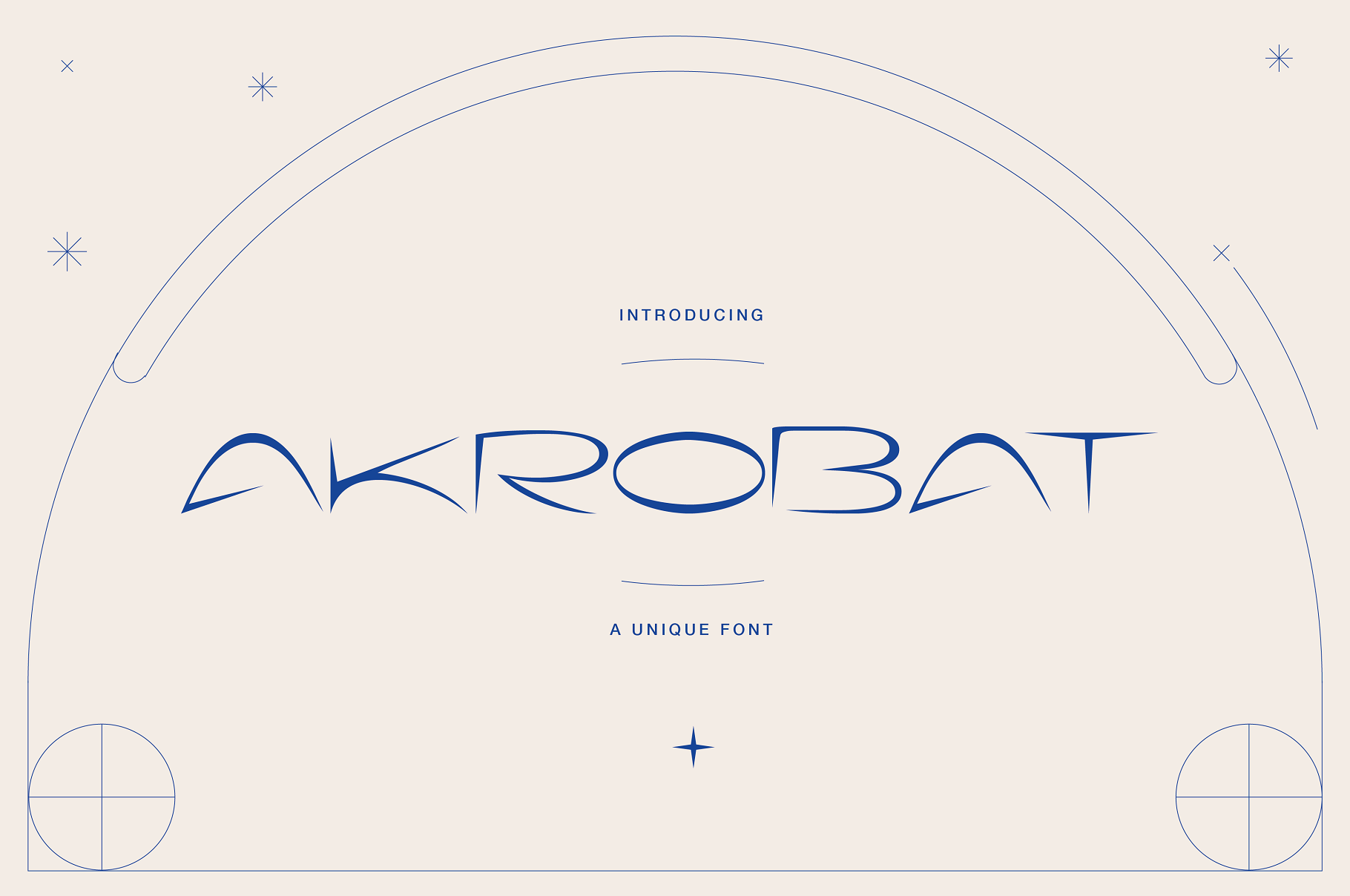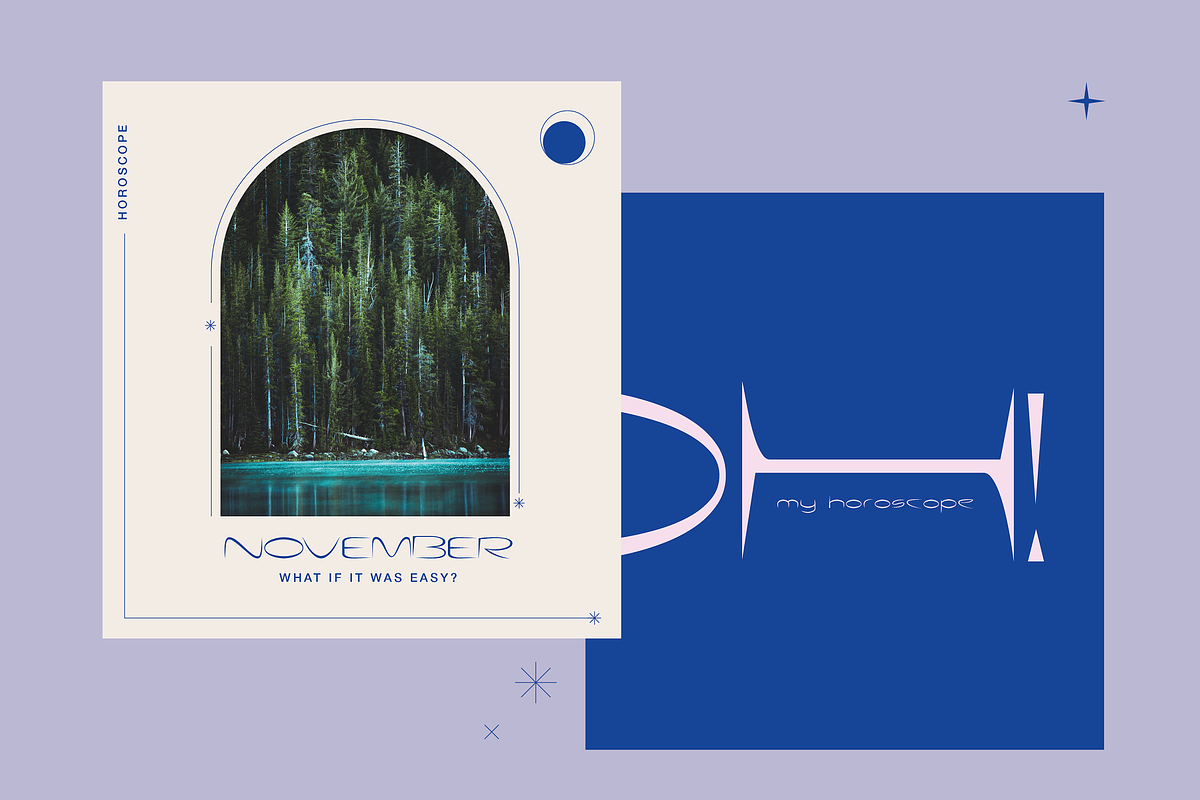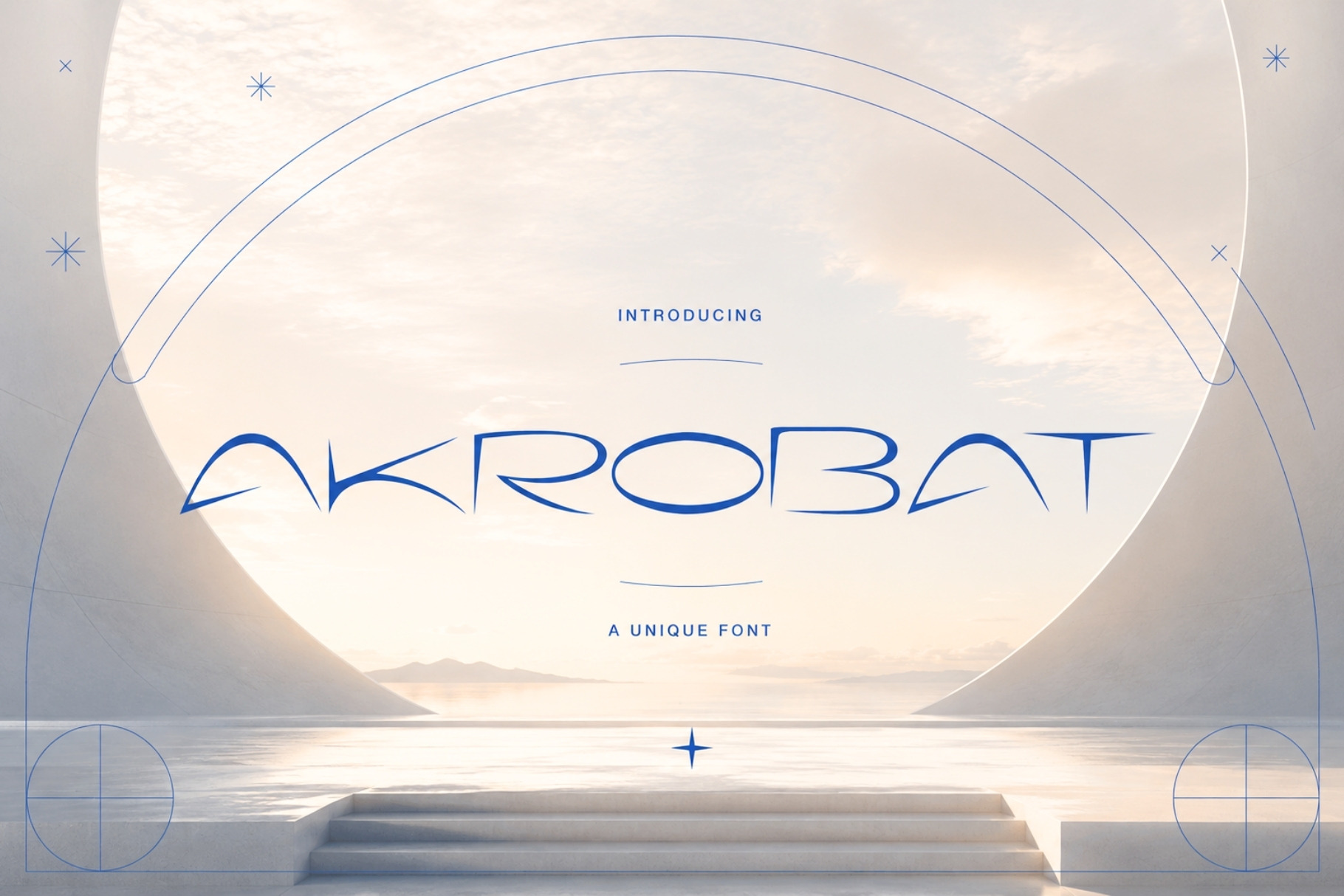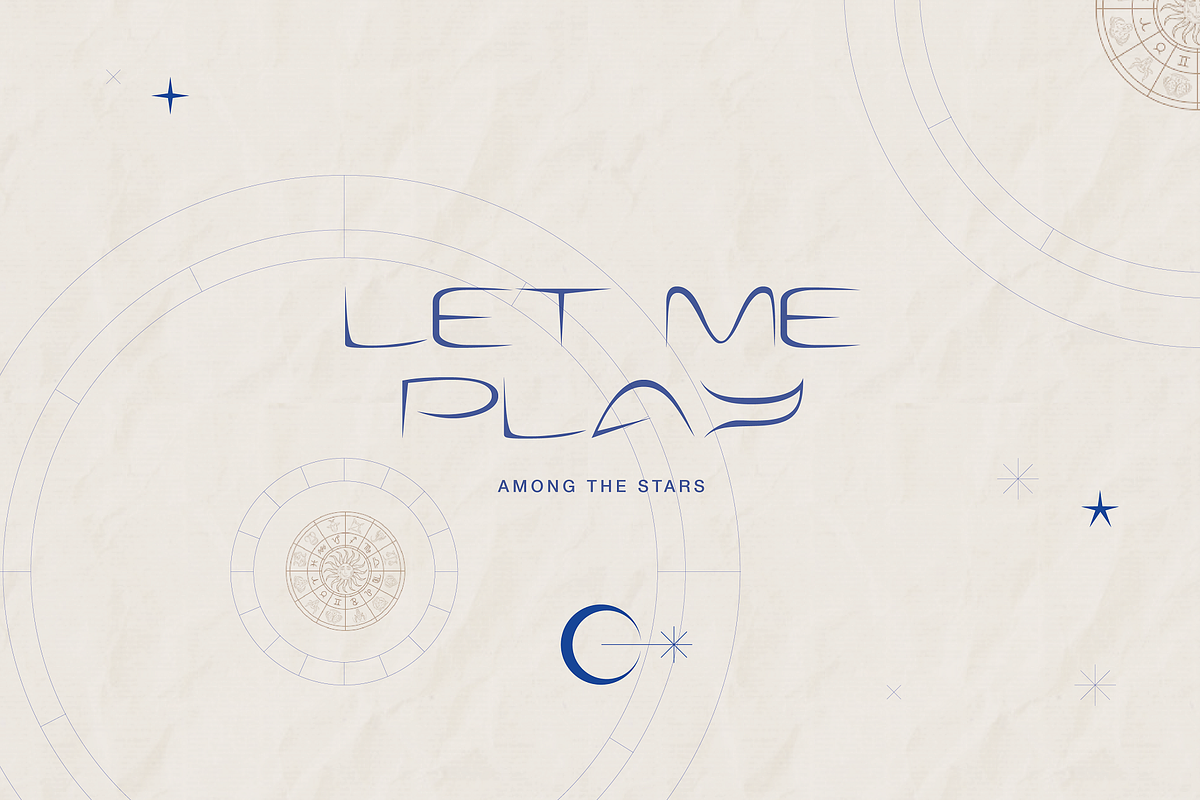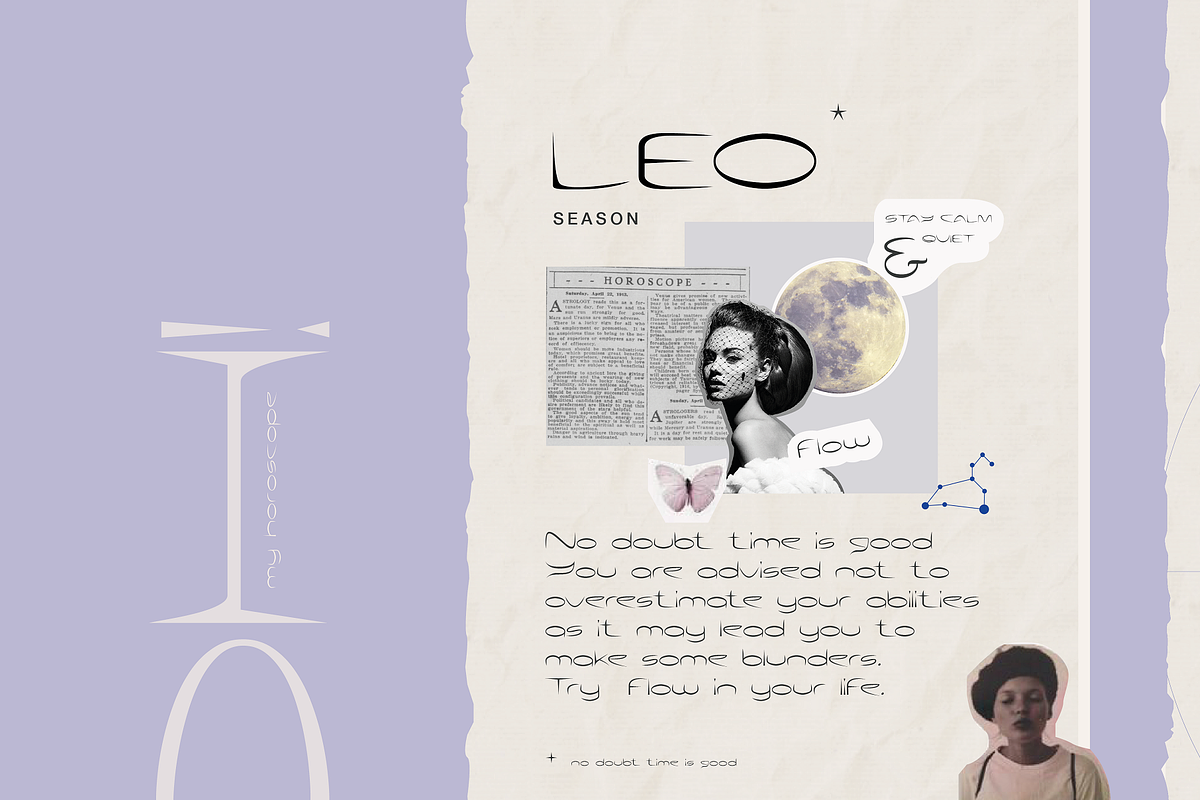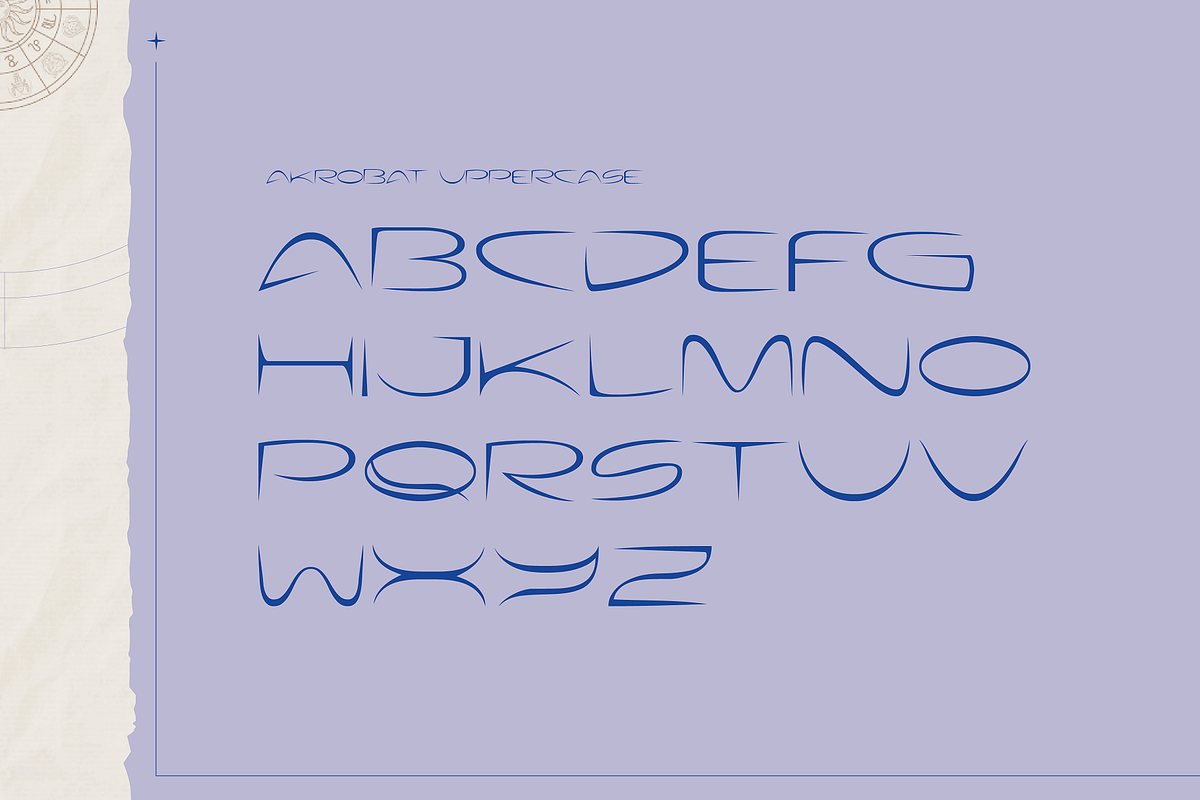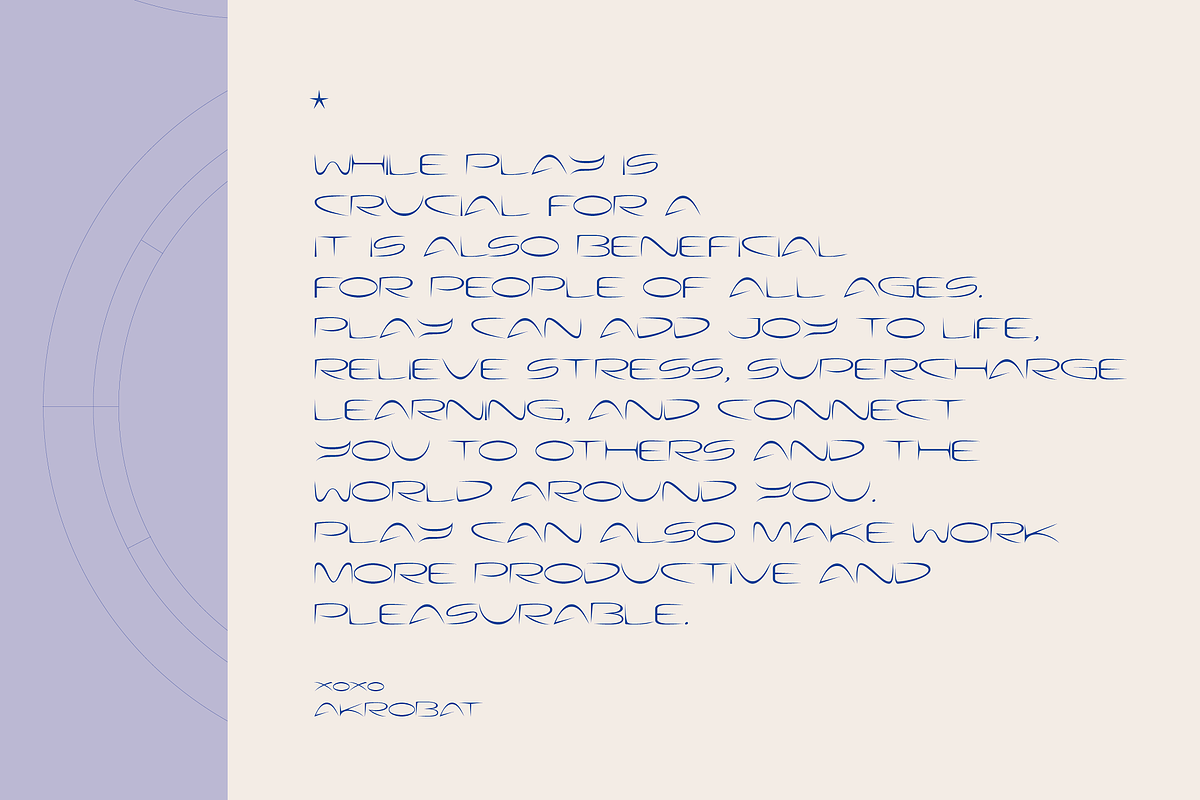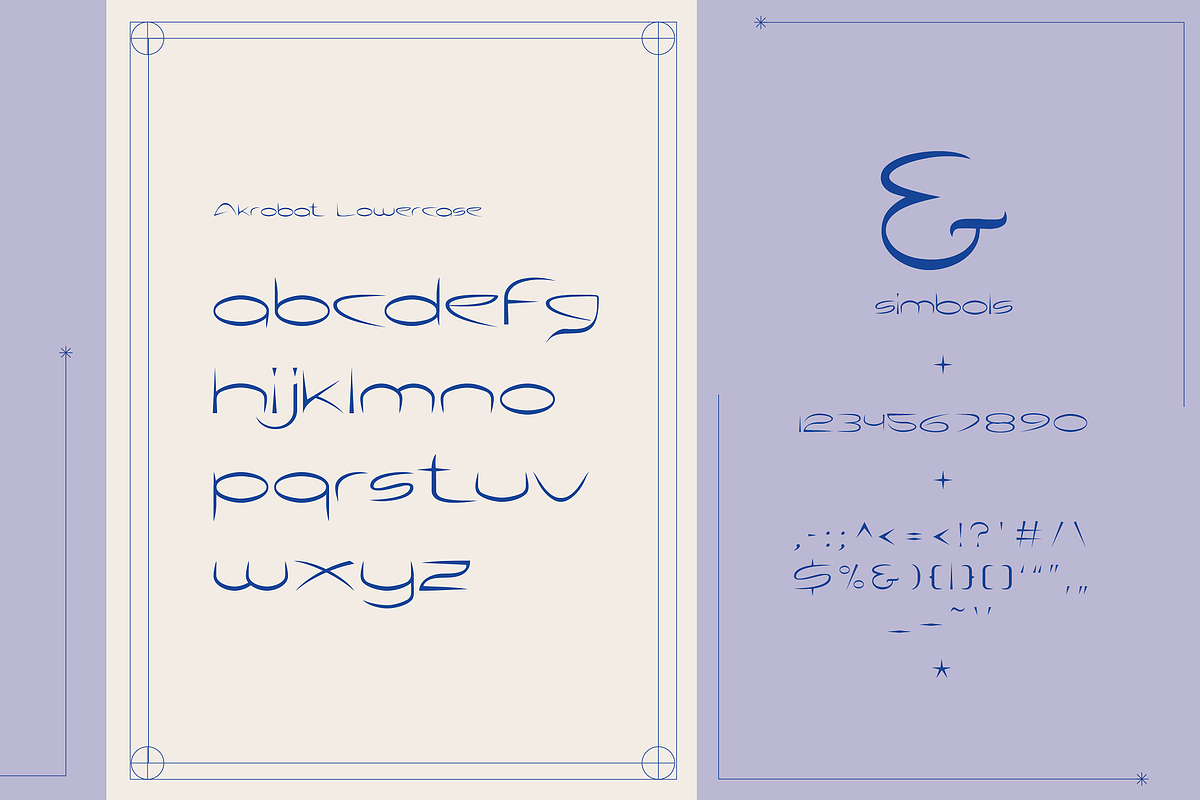
Akrobat - Thin & Elegant Typeface
Akrobat is a thin and elegant typeface. Thanks to its beautiful curves your designs will draw attention in a delicate and elegant way. You can use Akrobat to give your project a unique style.
It's perfect for branding, headlines, wedding invitations, social media, packaging, fashion, editorials, magazines, and much more. Add elegance and personality to your design projects with Akrobat today!